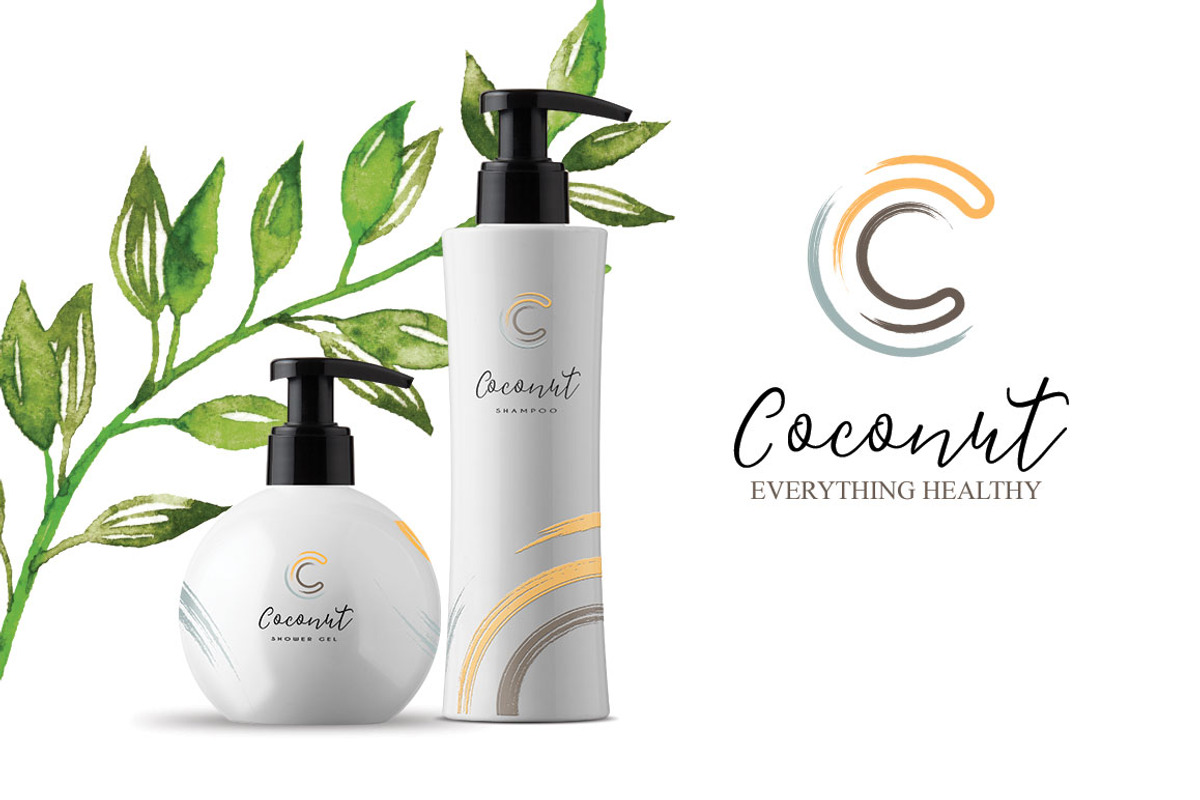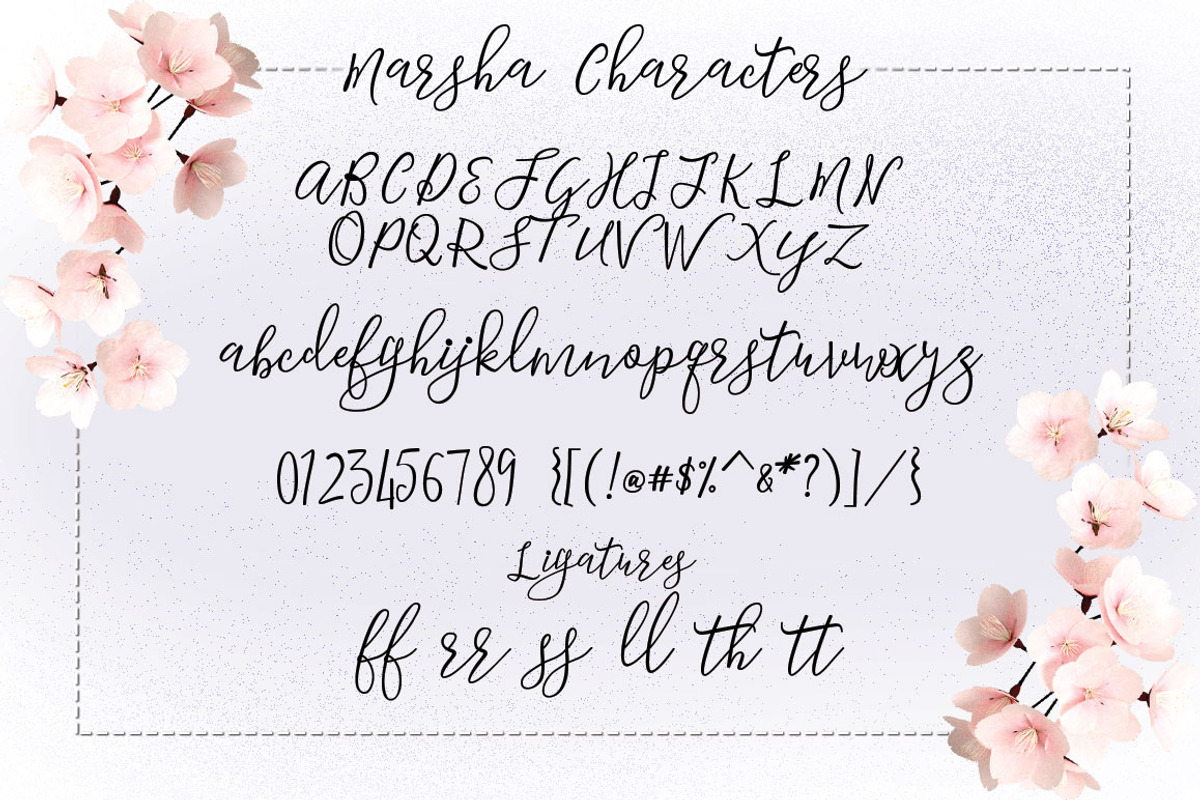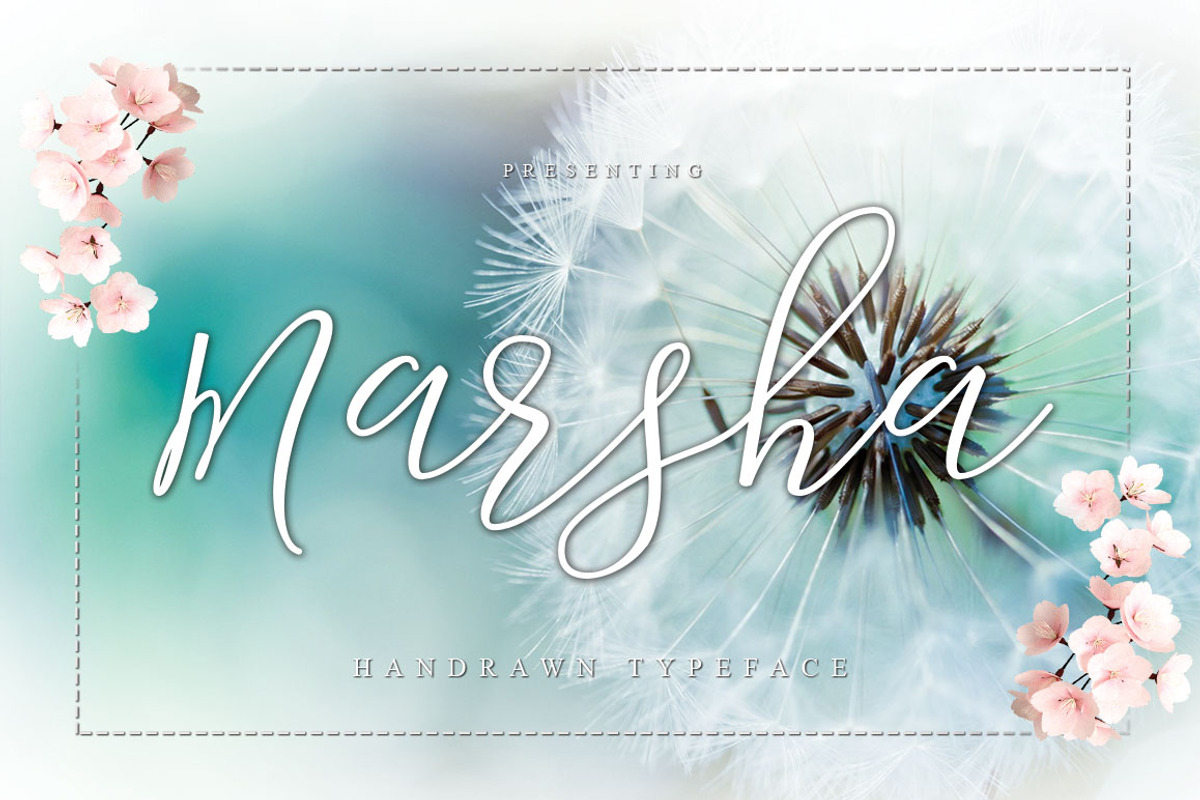
Marsha Typeface
Marsha Typeface by Face Lab is a font selected for branding, posters, packaging, typography.
- In particular would look great on, branding projects, logos, product packaging, posters, invitations, greeting cards, titles, blogs, everyth
- ;) Marsha Script lettering script comes with upper and lowercase characters, punctuation glyphs, numerals and a TTF of web font.Feel free to
Why Marsha Typeface is worth a look
Marsha Typeface by Face Lab fits naturally into Branding, posters, packaging, typography.